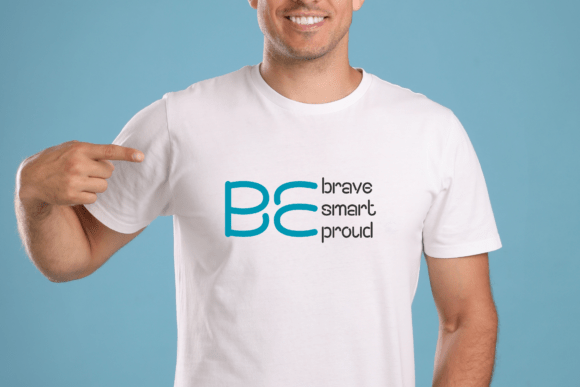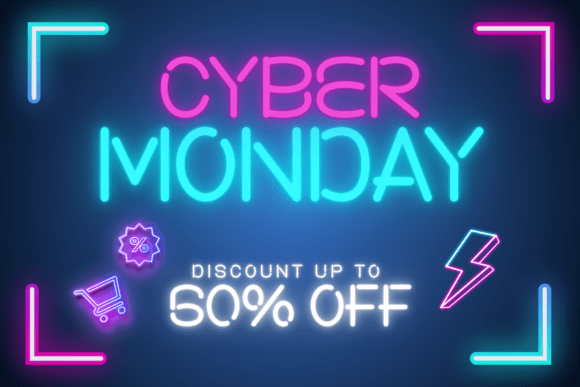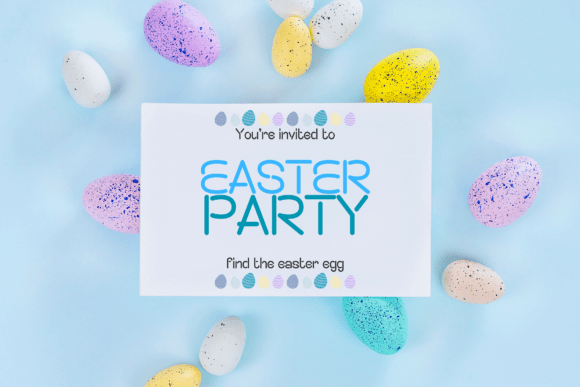
Introduction to Funky April Font
Inject a burst of energy into your designs with Funky April, a quirky display font that loves to stand out.
Characterized by its unique, segmented line style that mimics neon lights and retro signage, this typeface brings a fresh and creative vibe to any project Whether you’re designing eye-catching neon graphics, crafting bold apparel, or putting together vibrant event materials, Funky April delivers a distinctively fun and modern look.